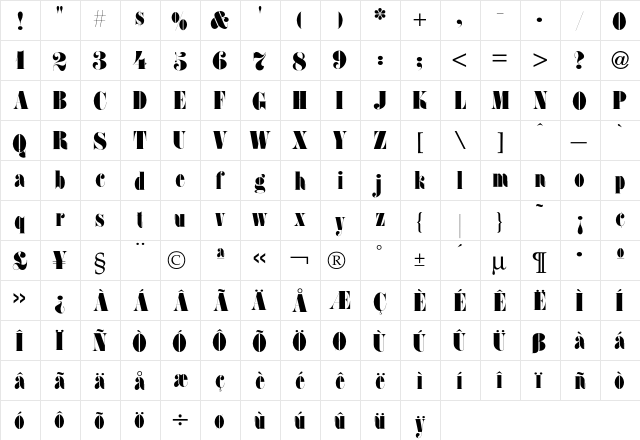
Fat Face
Design Context for Fat Typeface
Fat takes a measured approach to typography — its balanced proportions and neutral character make it a reliable workhorse for both digital and print work.